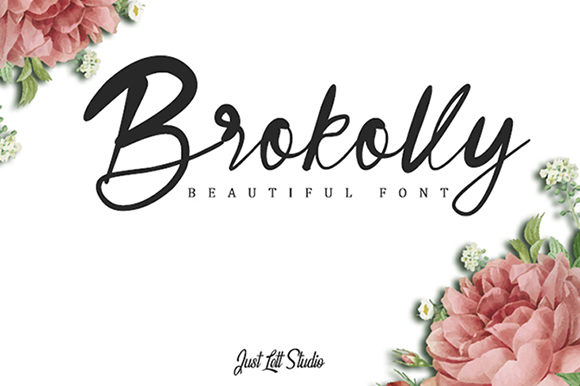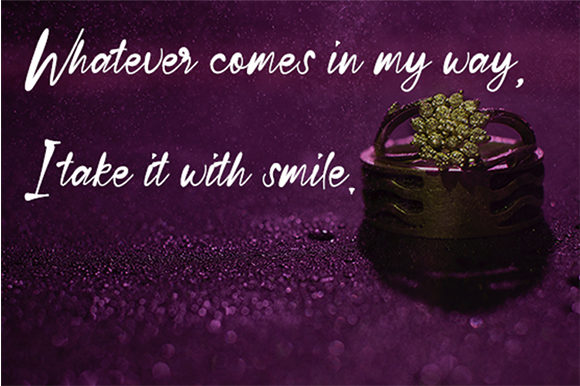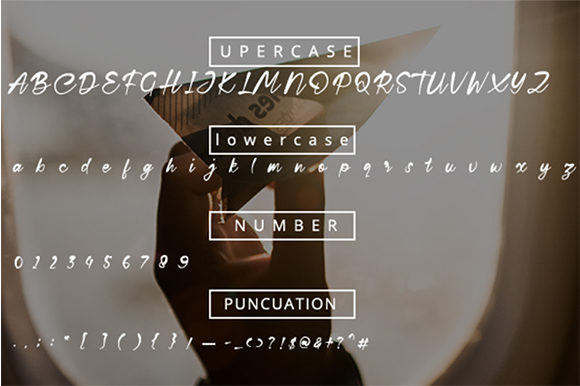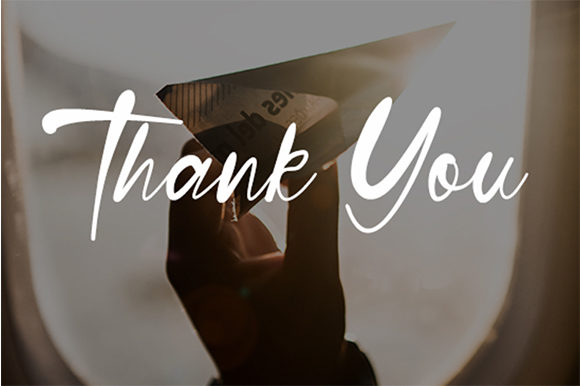
Brokolly Font
About Brokolly Font
Brokolly is a fresh and smooth handwritten font with a cool feel. Use it to turn any design project into a true standout!